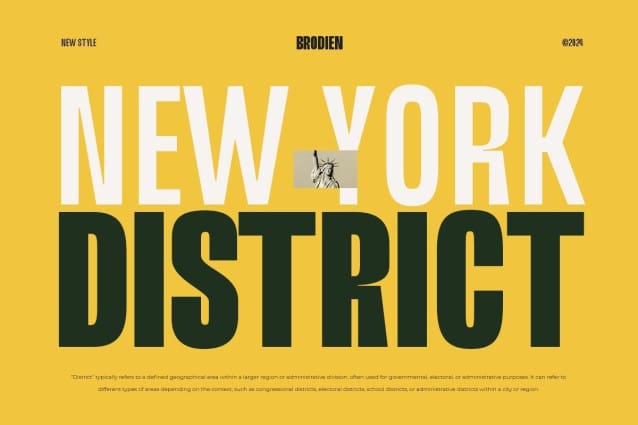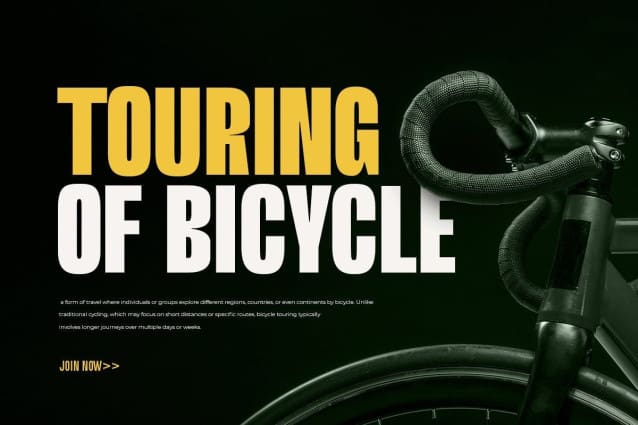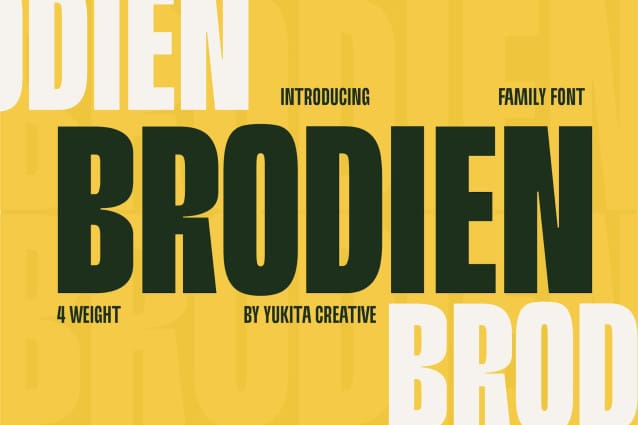
Brodien Font
Brodien Font is an attractive and versatile font, with its four weights providing great design flexibility. With a clean, modern touch, this font is suitable for a variety of graphic design projects, from designing logos to marketing materials.
Brodien Font is a versatile font with four weights: normal, medium, semi-bold, and bold. Featuring a modern touch and good readability, it is suitable for a variety of graphic designs, from small texts to large headlines